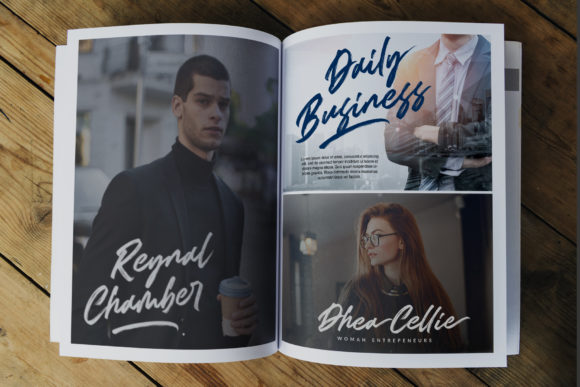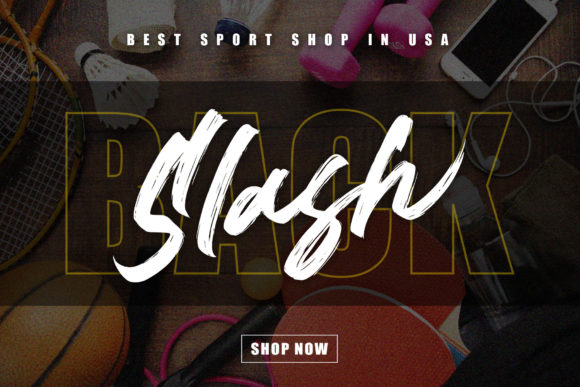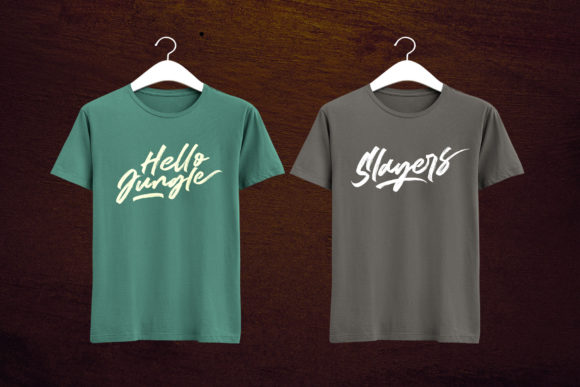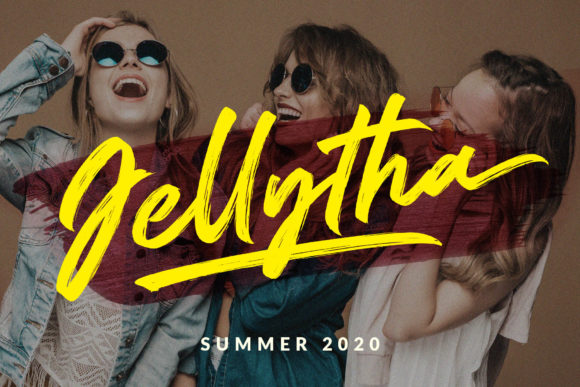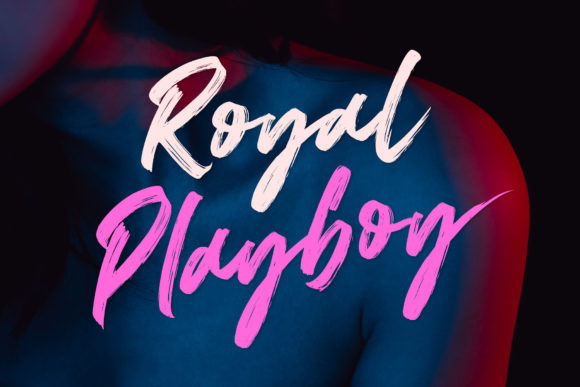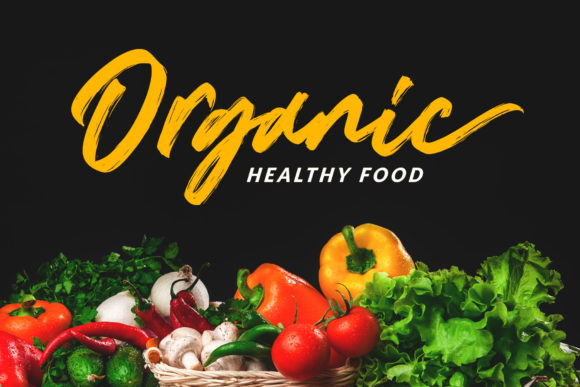
Introduction to Rightside Font
Rightside is a unique handwritten font.
Get inspired by its friendly feel and use it to create gorgeous wedding invitations, beautiful stationary art, eye-catching social media posts, and cute greeting cards .
Key Features of Rightside Font